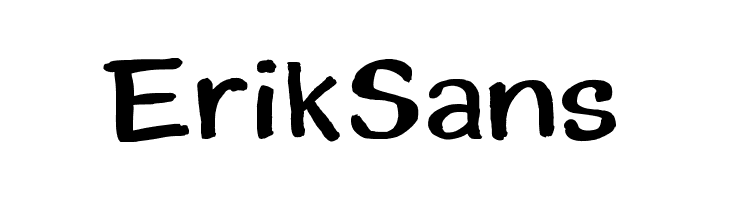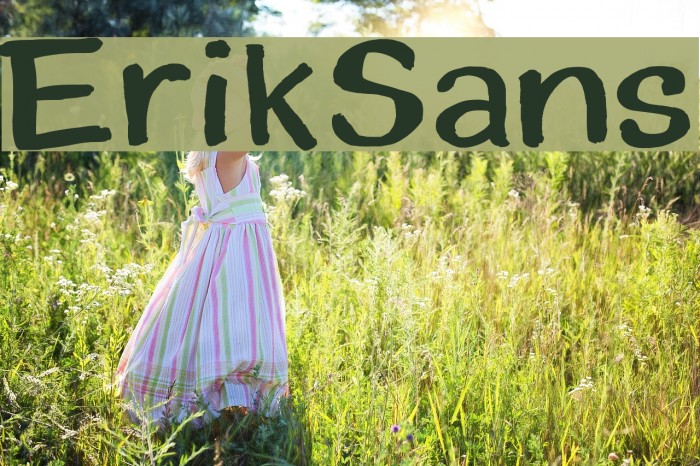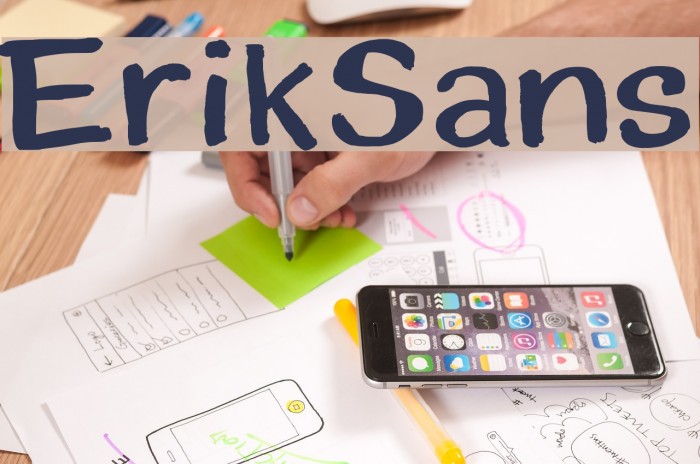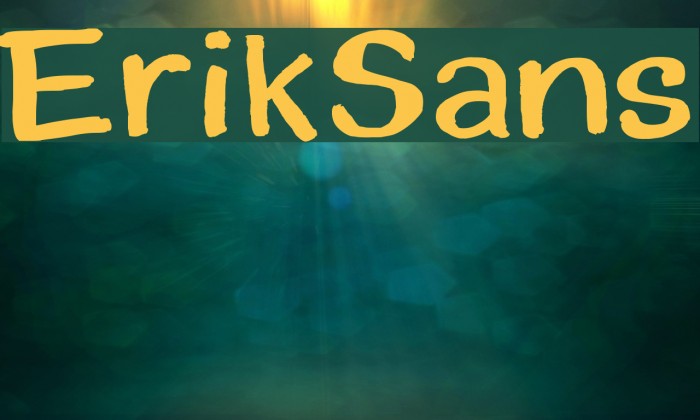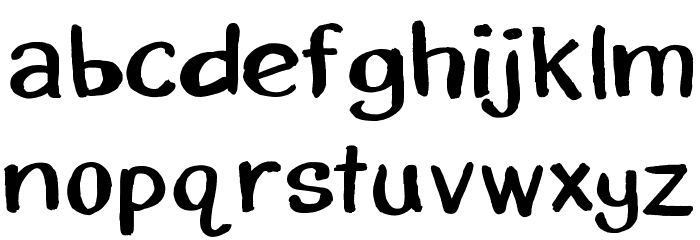
ErikSans Font
ErikSans Description
This font features a playful and informal style, characterized by its hand-drawn appearance. The letters have a slightly uneven and organic look, giving them a casual and approachable feel. The uppercase and lowercase characters maintain a consistent style, with rounded edges and a slight tilt, adding to the font's whimsical nature. The numbers and special characters follow the same design principles, ensuring uniformity across all glyphs. This font is ideal for projects that require a friendly and relaxed aesthetic, such as children's books, casual invitations, or creative branding.
A playful, hand-drawn font with a casual and whimsical style from Handwritten fonts.
- Proposed Projects: Children's books, casual invitations, creative branding, playful posters.
- Overall Style: Casual
- Use Case: Headlines, Logos, Informal text